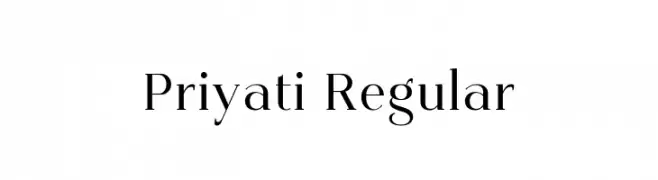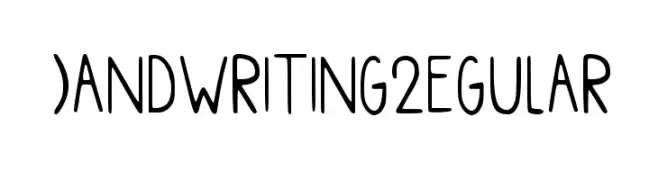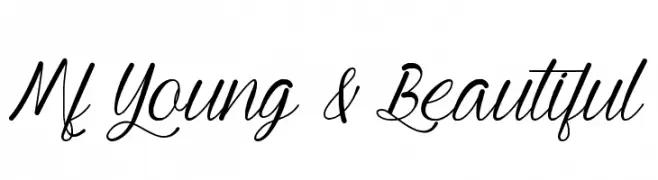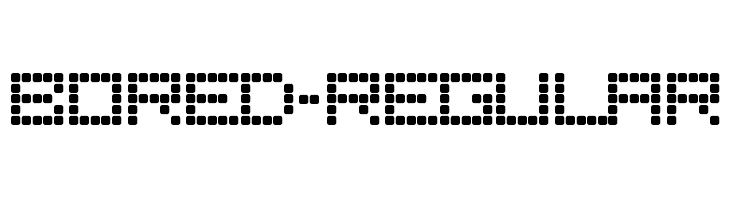
A classic serif font with elegant, elongated serifs and balanced proportions.
A playful, hand-drawn font with a whimsical, childlike style.
A bold, angular font with a gothic flair, perfect for dramatic and impactful designs.
A bold, monospaced font with a clean and modern design.
A dual-style font combining ornate script with distressed sans-serif elements.
A cursive script font with elegant, flowing strokes and a handwritten appearance.